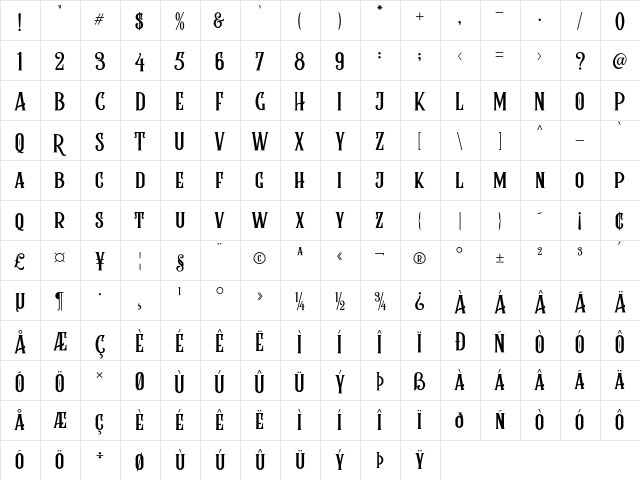
Rumble Brave Regular
Design Context for Rumble Brave Typeface
Rumble Brave is a composed and adaptable typeface that performs quietly and consistently across a wide range of design contexts.